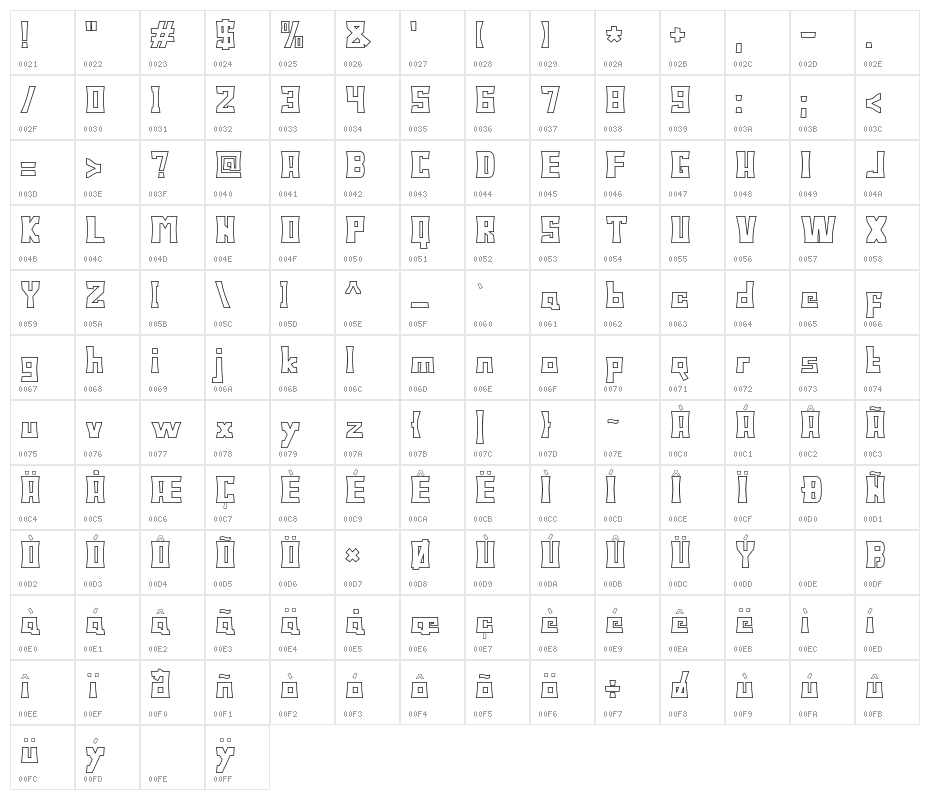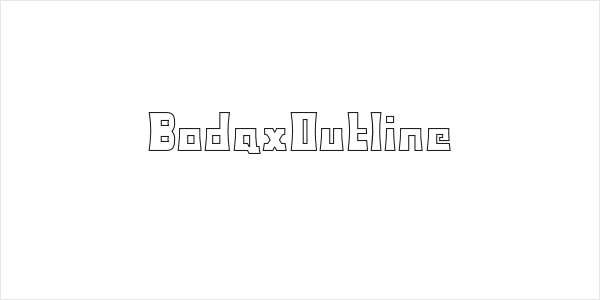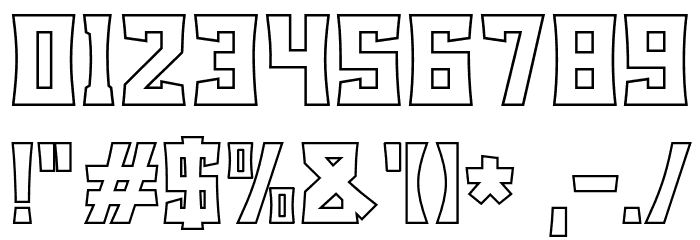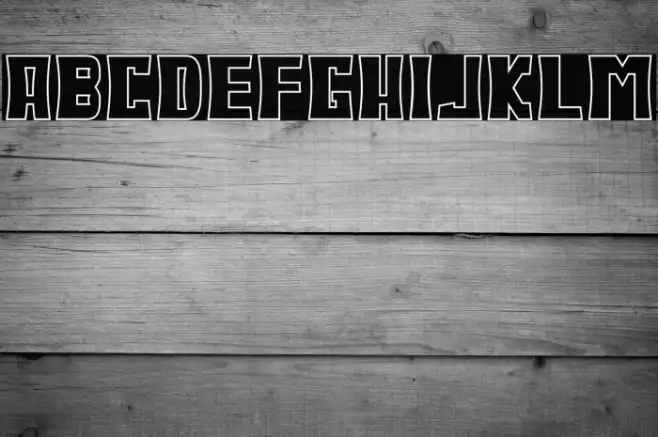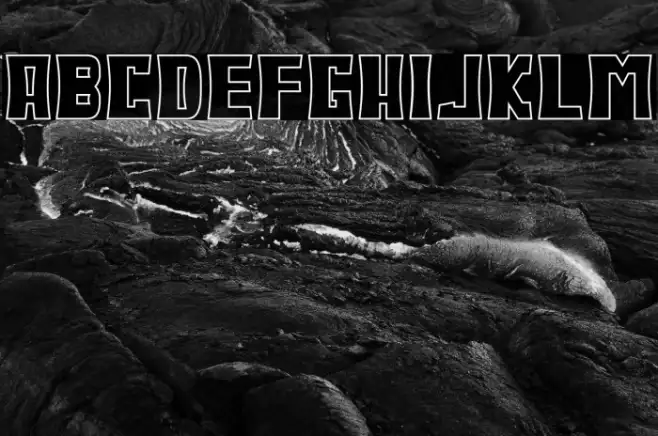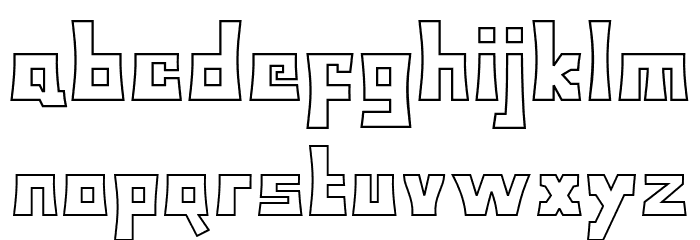
BodaxOutline Font
BodaxOutline Description
This font features a bold, outlined style with a geometric and angular design. Each character is constructed with thick, uniform lines that create a striking outline effect, giving the font a three-dimensional appearance. The uppercase letters are particularly bold, with sharp angles and a blocky structure. The lowercase letters maintain the same angular style but are slightly more condensed. Numbers and special characters follow the same design principles, ensuring consistency across all glyphs. The overall look is modern and eye-catching, making it suitable for attention-grabbing headlines and titles.
| Proposed Projects | Ideal for poster designs, branding projects, and any creative work that requires a modern and bold typeface. |